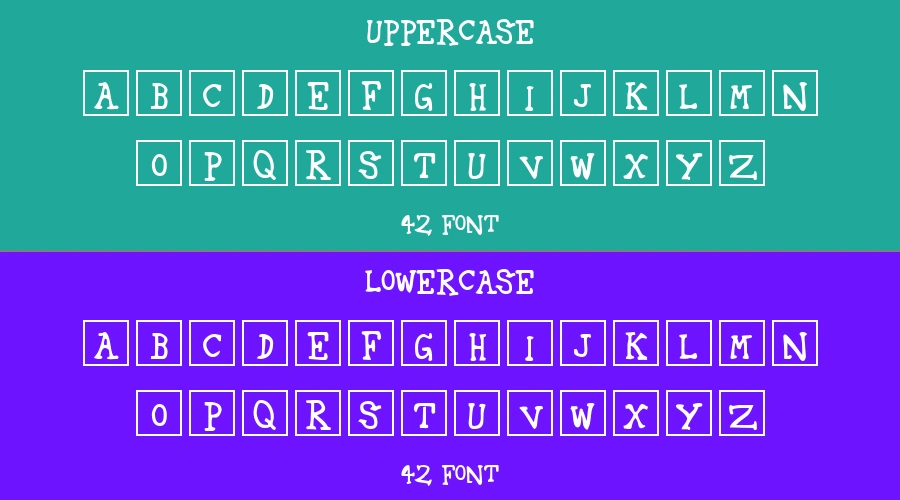
About 42 Font
Designed with precision, 42 Font merges harmonious shapes with refinement in every character. This versatility makes it particularly effective for digital signage, where precision and uniqueness directly impact communication quality. Each letterform demonstrates meticulous craftsmanship.
Technical excellence shines through elements like rectangular counters and automatic fractions, enhancing typographic versatility. In digital platforms settings, 42 Font proves its worth through superior brand recognition. The thoughtful execution of aperture size and standards alignment ensures professional results.